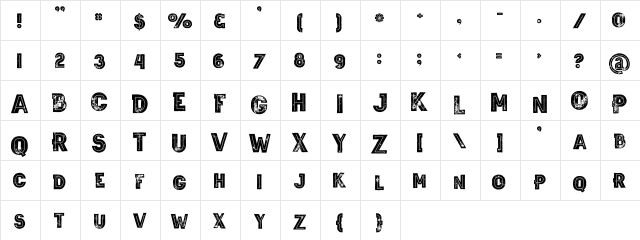
Wagoon Bold Inline Grunge Bold Inline Grunge
Design Context for Wagoon Bold Inline Grunge Typeface
Wagoon Bold Inline Grunge embraces imperfection — its rough, textured character adds raw authenticity to designs that want to feel lived-in and unconventional.
Suited to punk-influenced zines, underground music branding, streetwear, and raw, anti-corporate design.
Pro Tip: Pair Wagoon Bold Inline Grunge with intentionally raw or lo-fi design elements. Fighting against it with overly polished surroundings will undermine its personality.